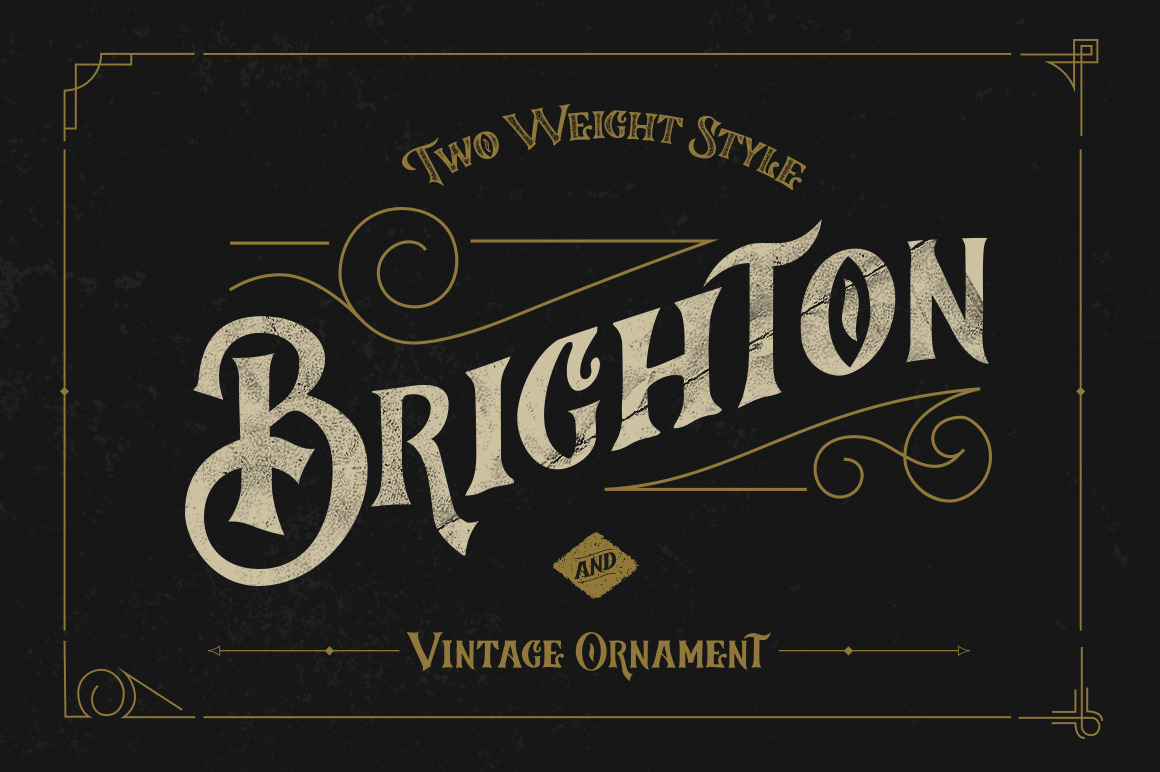
Brighton Typeface & Ornaments
Introduce Brighton & Smith typeface. Create from handdraw style (available with 2 weight style), inspired from vintage old time, suit for header, logo, brand, clothing, poster, Quote including ornament pack to subtle and decorate with this type. Good for vintage theme.